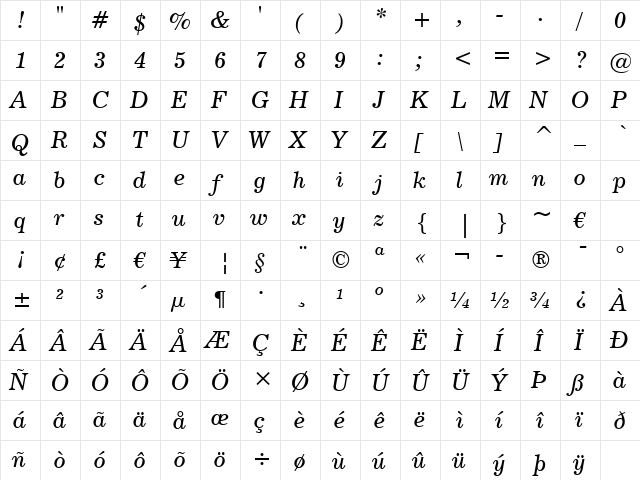
Century731 BT Italic
Design Context for Century731 BT Typeface
Century731 BT offers clean, dependable letterforms without strong stylistic allegiance, making it a practical choice for designers who need flexibility. The dynamic lean of this cut emphasises speed and emphasis in any layout.
Pro Tip: Try Century731 BT for annotation and caption copy alongside an upright companion — the contrast in angle creates a dynamic but ordered typographic system.